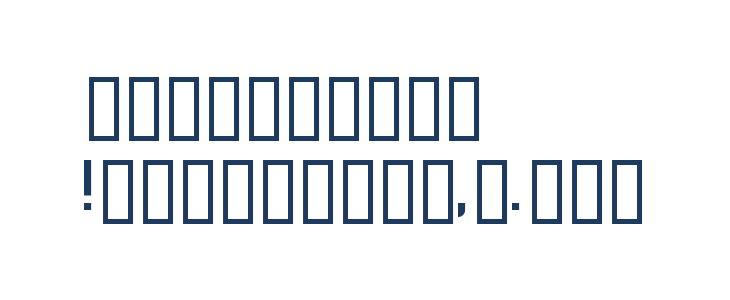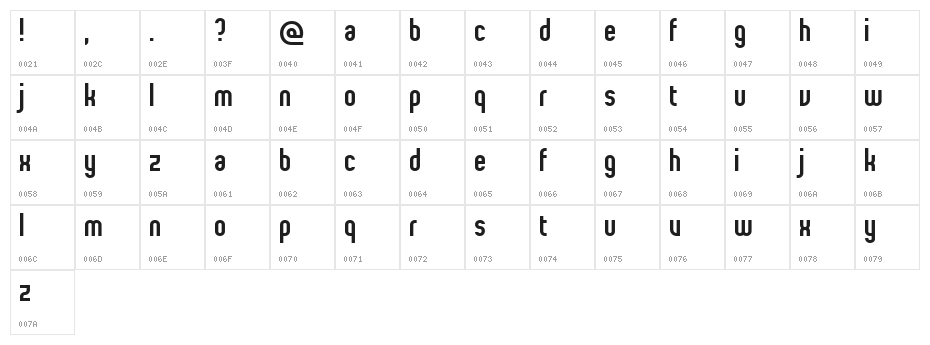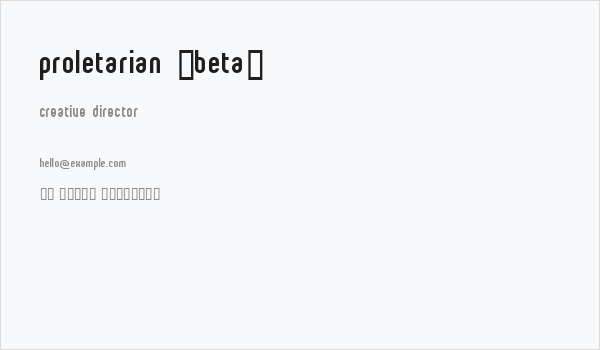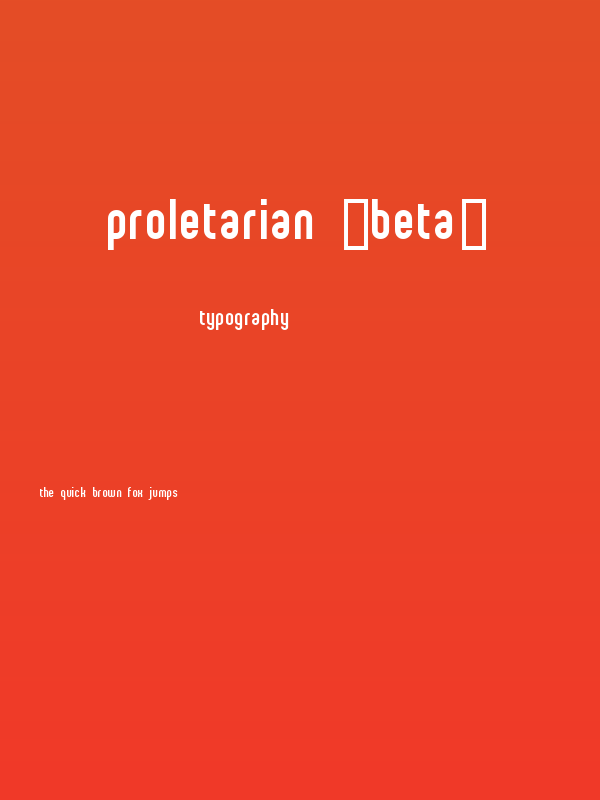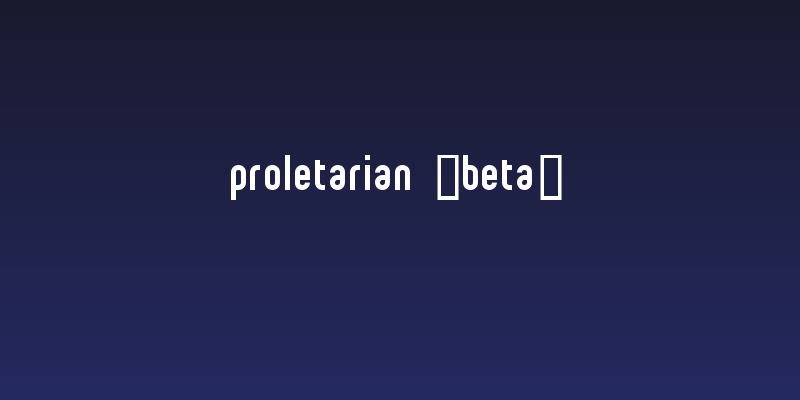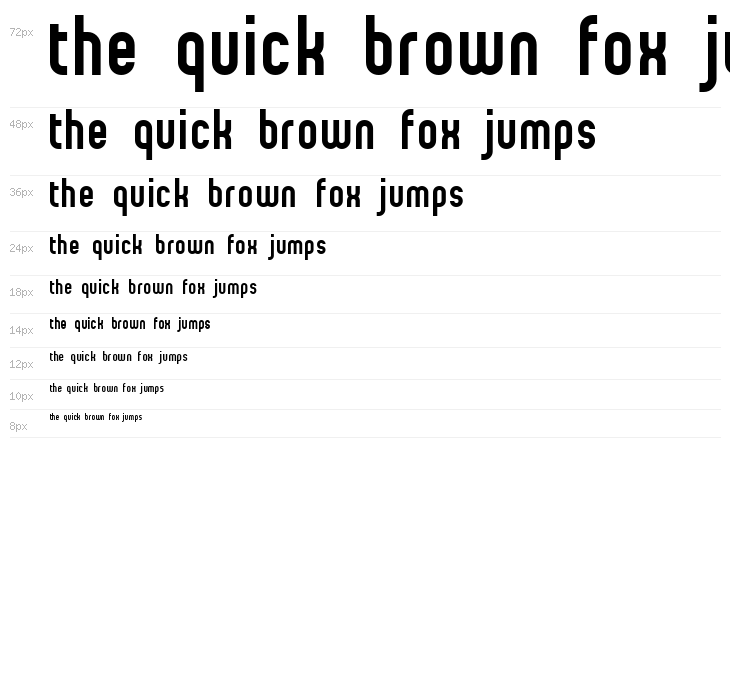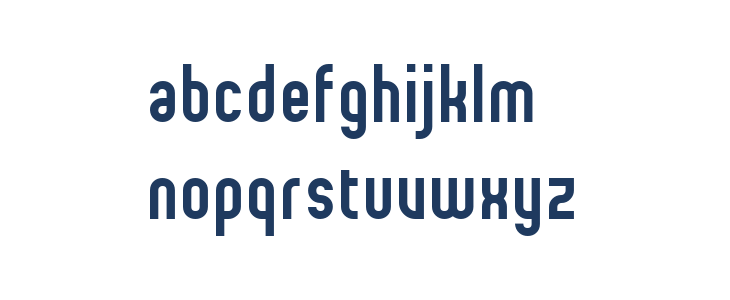
proletarian [beta] Font
proletarian [beta] Description
This font features a bold and geometric design with a modern aesthetic. The characters are uniformly structured with a consistent stroke width, giving it a clean and robust appearance. The uppercase and lowercase letters maintain a similar height, enhancing its uniformity. The rounded edges and lack of serifs contribute to its contemporary feel, making it suitable for digital and print media. The font's simplicity and clarity make it highly legible, even at smaller sizes. Its strong presence is ideal for making impactful statements in headlines or branding materials.